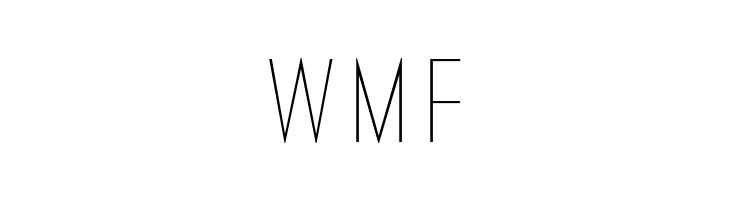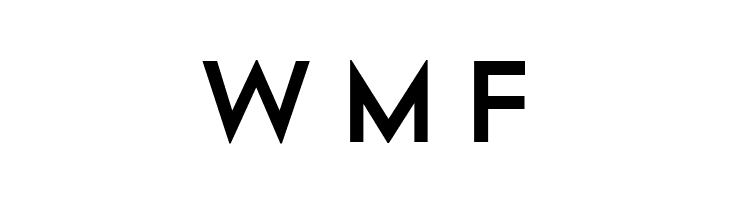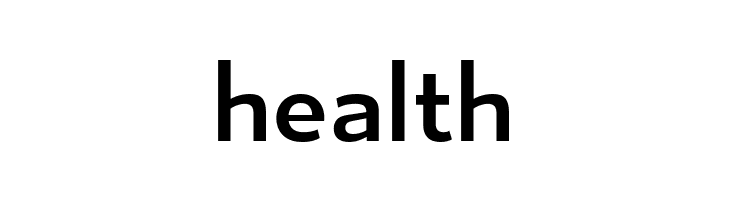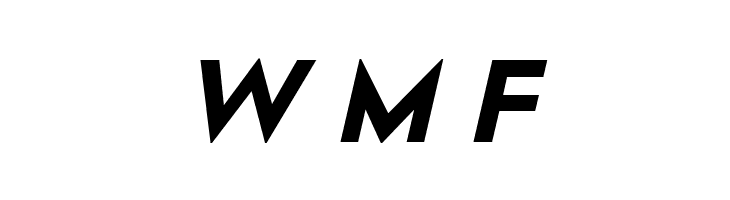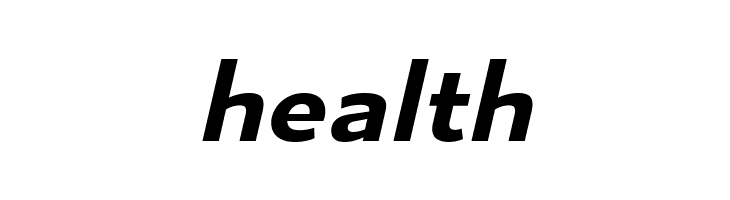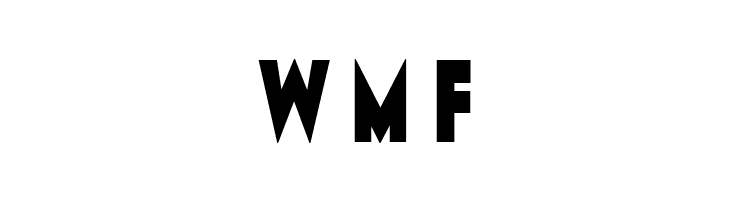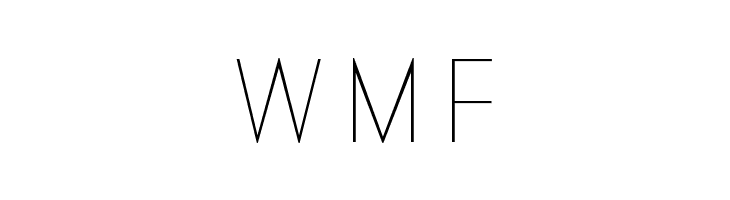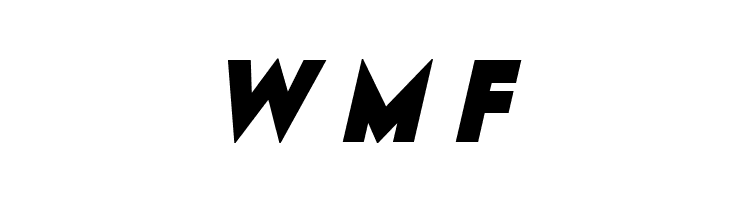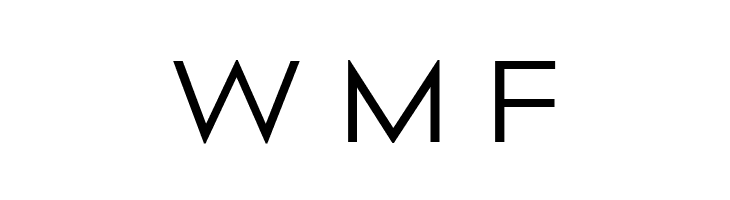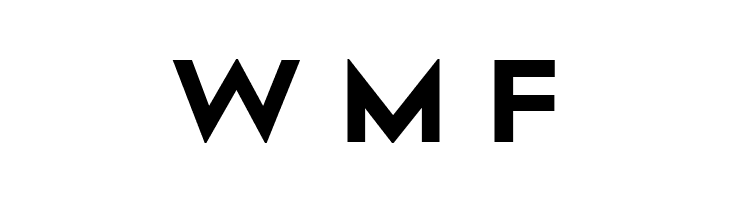
A modern, thin, and elegant font with elongated letterforms.
A modern, geometric sans-serif font with balanced proportions and a professional appearance.
A sleek, modern italic font with consistent stroke width and elegant design.
A modern, italicized font with a sleek and dynamic style.
A bold, geometric font with strong, uniform letterforms.
A modern, minimalist sans-serif font with clean lines and balanced spacing.
A bold, italic font with dynamic slanted letterforms and a modern style.
A modern, bold sans-serif font with a geometric design and excellent readability.
A bold, italicized font with dynamic, thick strokes and a strong presence.